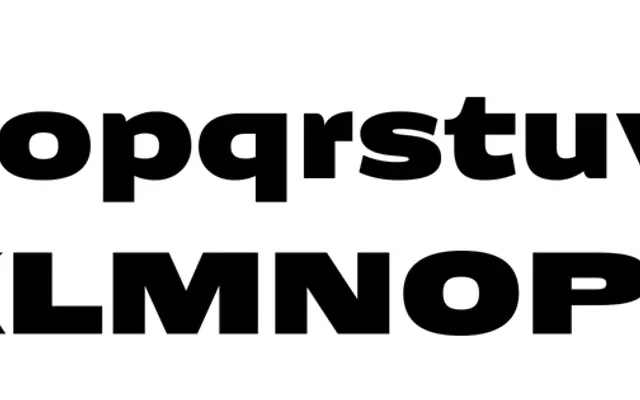
Stanley
Bold Monday · Pieter van Rosmalen · 2008
A broad-shouldered poster grotesque in three styles, drawing on 19th-century British sans-serifs and early American Gothic traditions.
Designed by Pieter van Rosmalen and released in 2008, Stanley comes in Normal, Stencil and Stencil Rough cuts, all sharing the quirky, idiosyncratic character shapes typical of early English Grotesques. The family covers Latin, Greek and Cyrillic scripts with an extensive language list and includes arrows, dingbats and OpenType extras such as ligatures and stylistic alternates. Bold Monday position it within a broader 'Italo-American Grotesque' collection alongside Nitti Grotesk and Nitti Typewriter.
Rooted in 19th-century British Grotesques and early American Gothics, Stanley is explicitly poster-oriented and bold, placing it in the display category with a grotesque subcategory lineage.